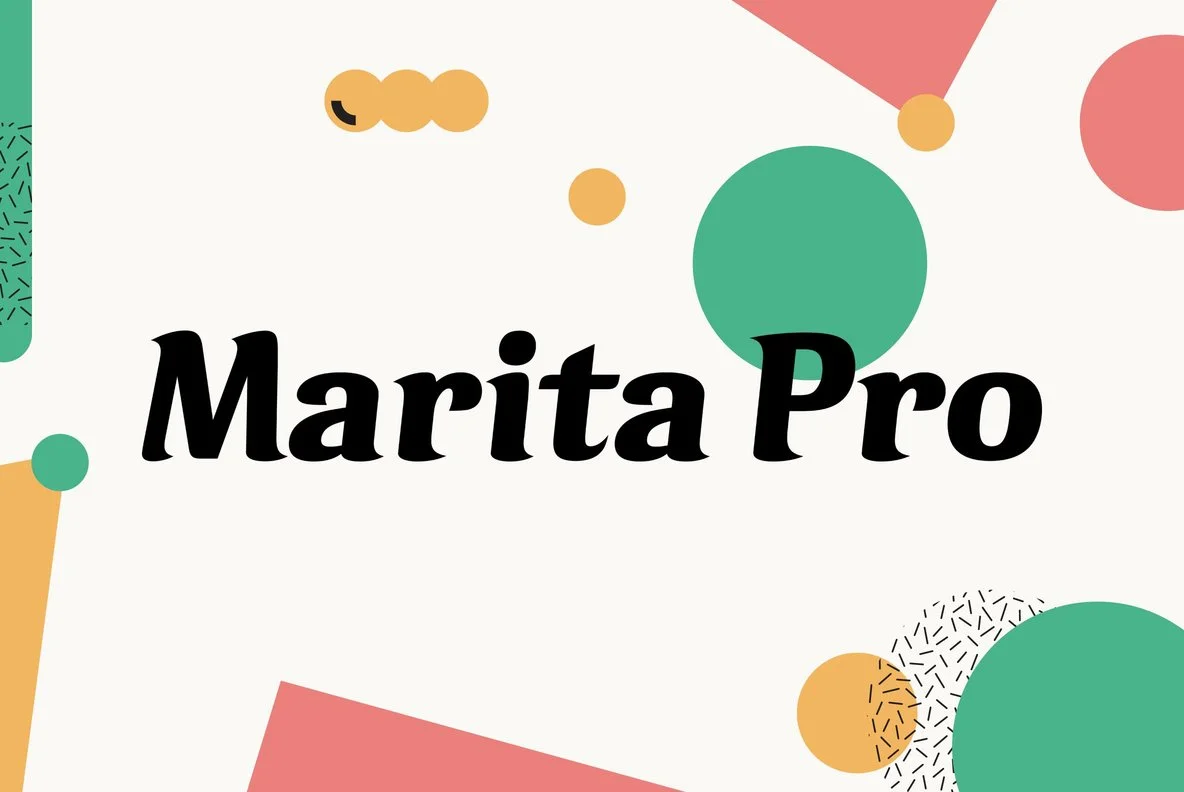
Marita Pro Font
Marita Pro Font is perfect for professional branding, corporate identities, editorial designs, business presentations, luxury product packaging, high-end marketing materials, magazine layouts, sophisticated logos, premium web interfaces, elegant stationery, financial services branding, and any design project requiring polished and professional typography.
What makes Marita Pro Font exciting is its refined sophistication that balances elegance with professional functionality. The font's carefully crafted letterforms demonstrate attention to detail and typographic excellence, making it ideal for brands seeking to convey quality, expertise, and trustworthiness. Its versatile character allows seamless integration across diverse applications while maintaining consistent professionalism, giving designers a reliable foundation for creating premium visual communications.
The Marita Pro Font family typically includes multiple weights, uppercase and lowercase characters, numerals, punctuation marks, extensive language support, and OpenType features for advanced typographic control.